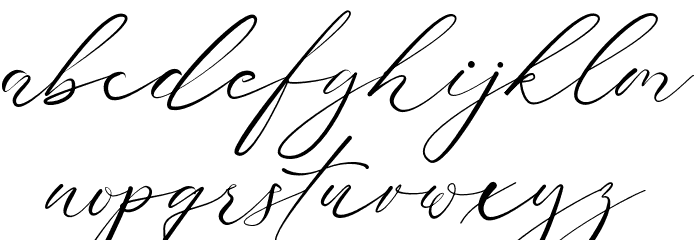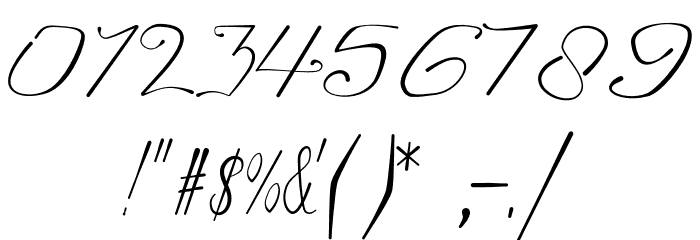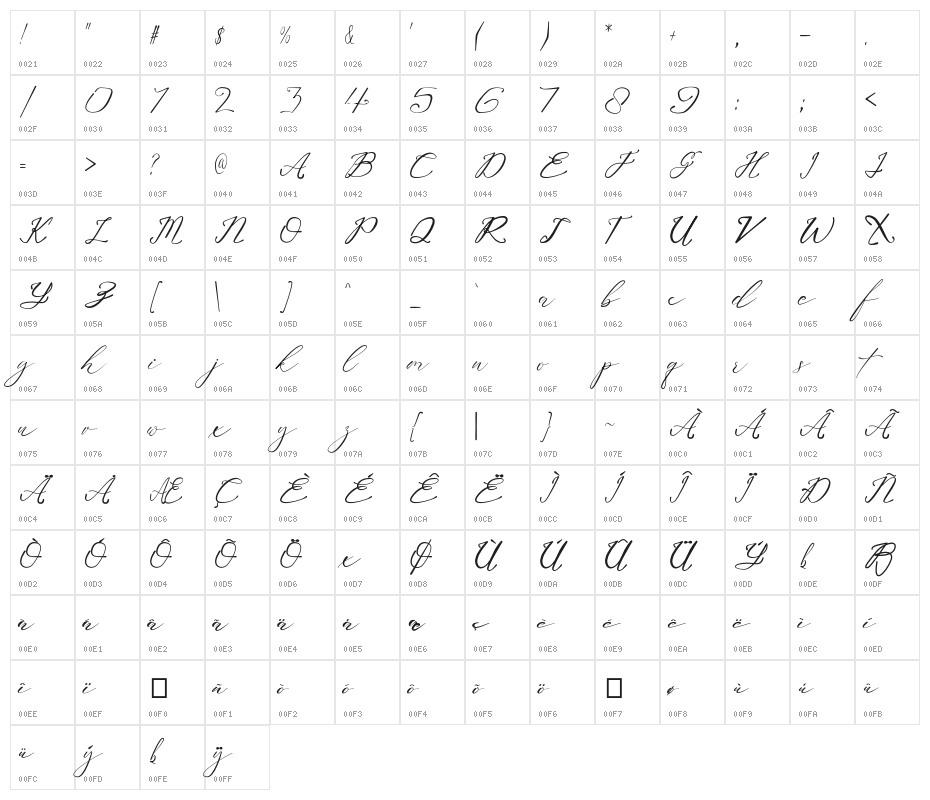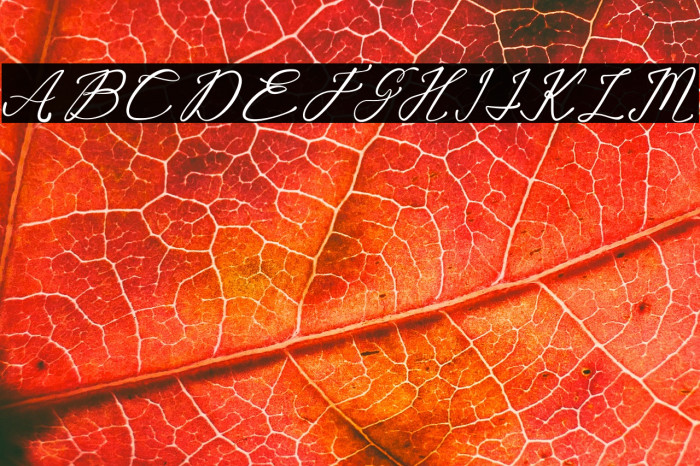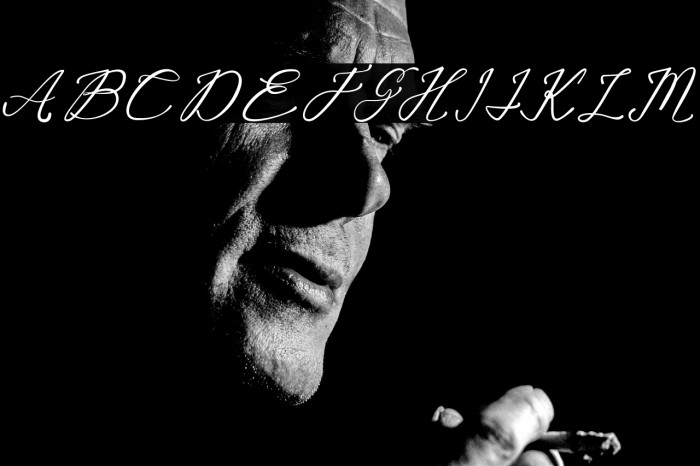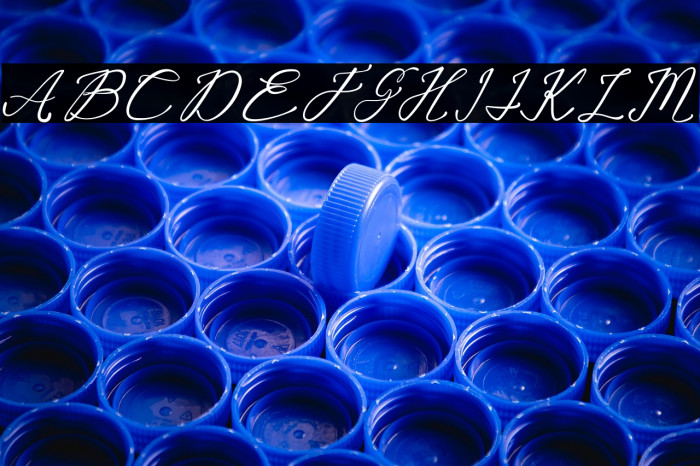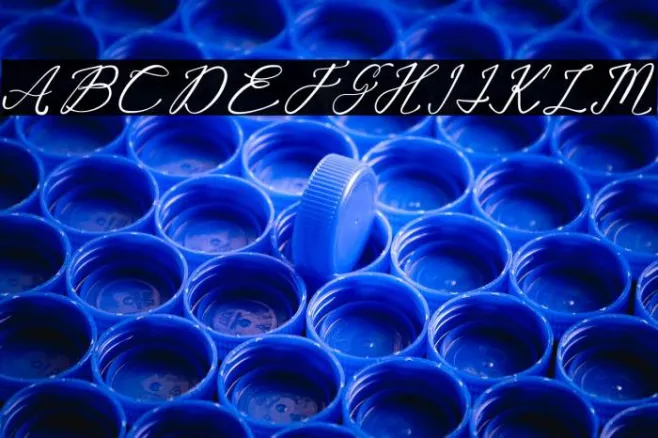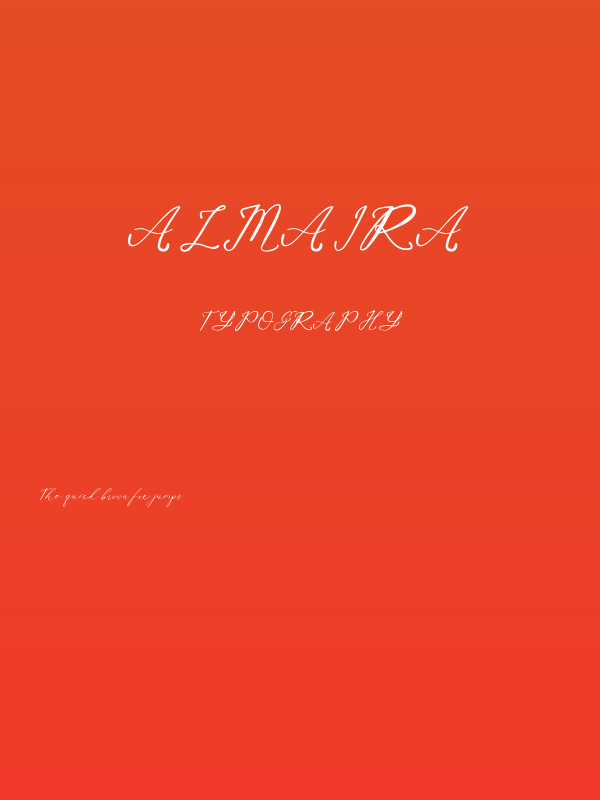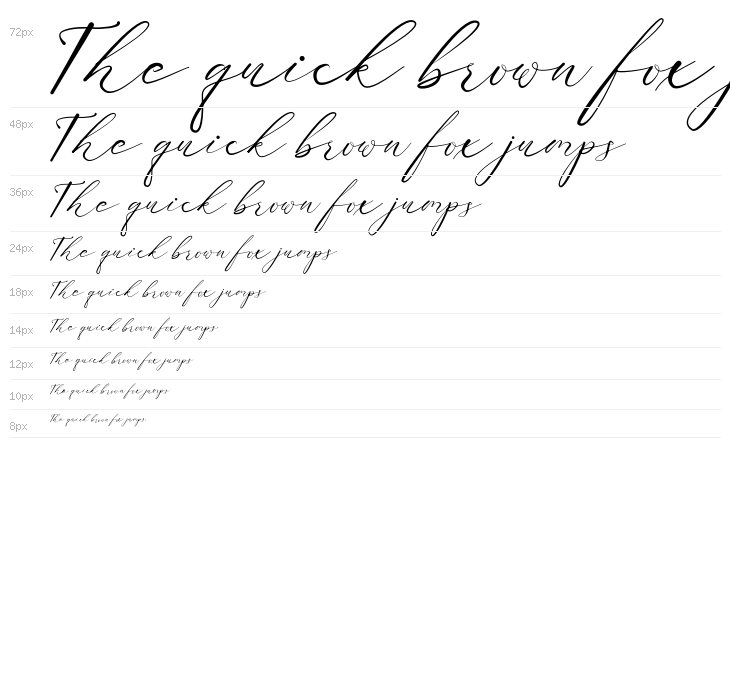
Almaira Font
This elegant script font features a flowing, cursive style with graceful, sweeping lines and a sophisticated appearance. The uppercase letters are characterized by their intricate loops and flourishes, while the lowercase letters maintain a smooth, connected flow. The numerals are designed with a similar elegance, offering a consistent aesthetic throughout. Special characters are thoughtfully integrated, enhancing the font's versatility. The overall design exudes a sense of refinement and artistry, making it suitable for formal and creative applications.
An elegant, flowing script font with intricate loops and a sophisticated style.
- Font: Almaira
- Proposed Projects: Ideal for wedding invitations, elegant branding, greeting cards, and artistic projects.
- Category: Script
- Overall Style: Elegant, Artistic
- Use Case: Invitations, Branding, Artistic projects